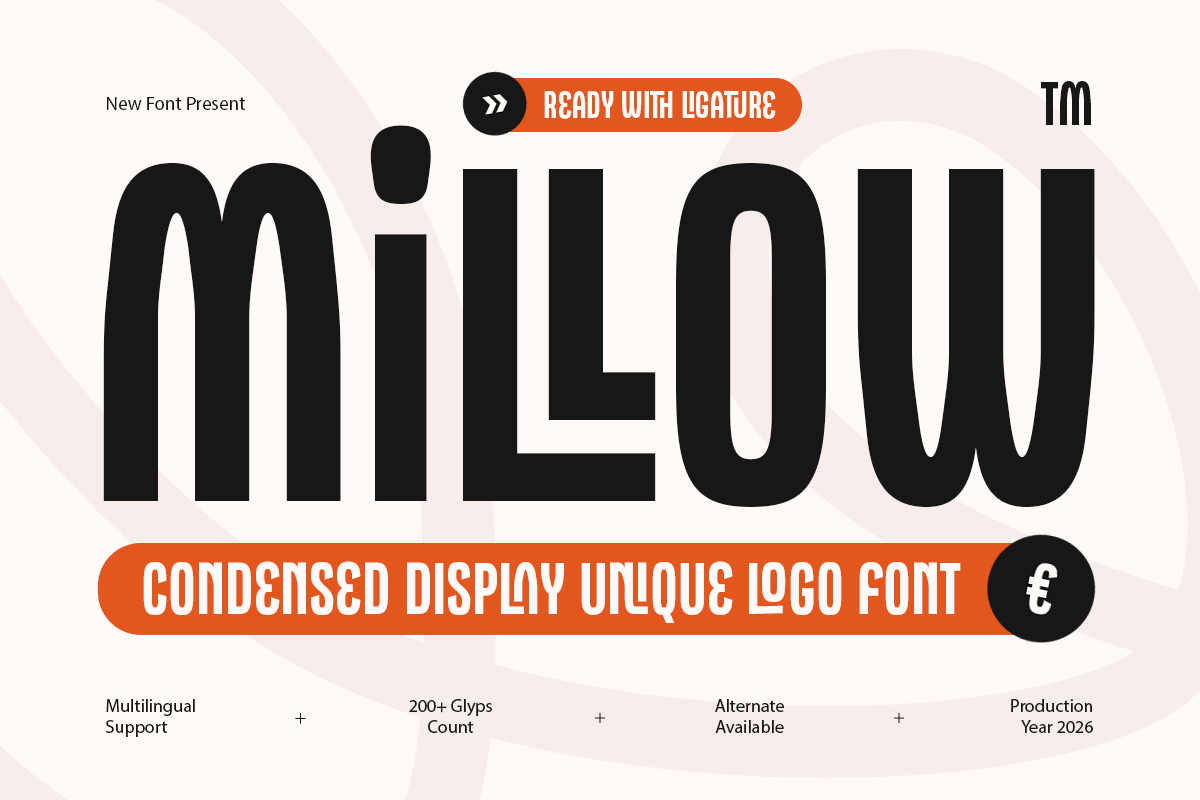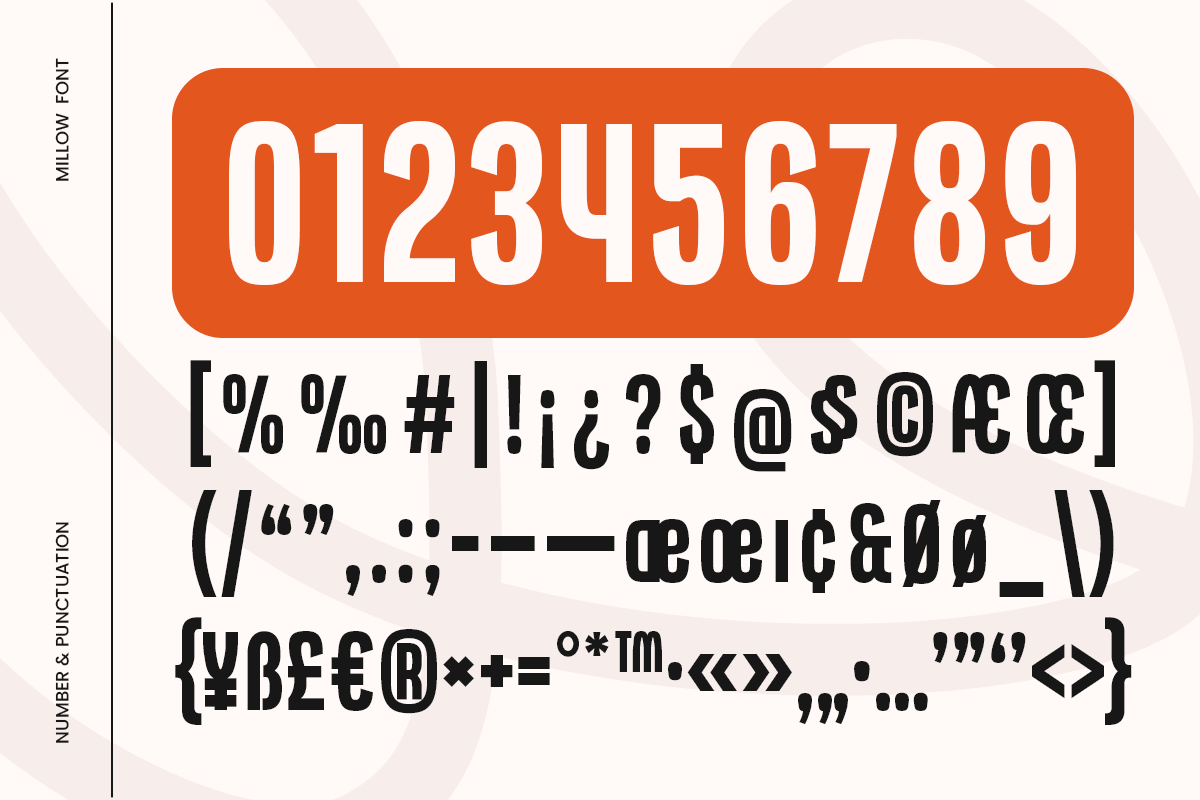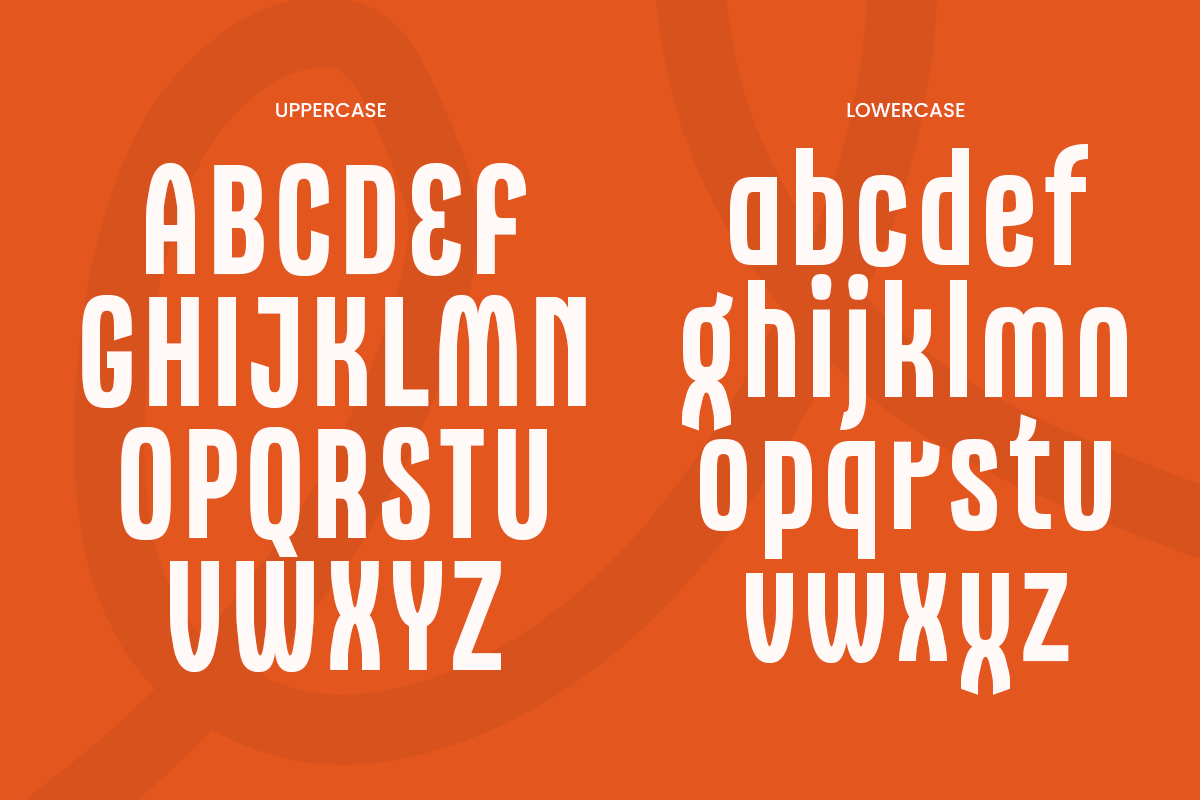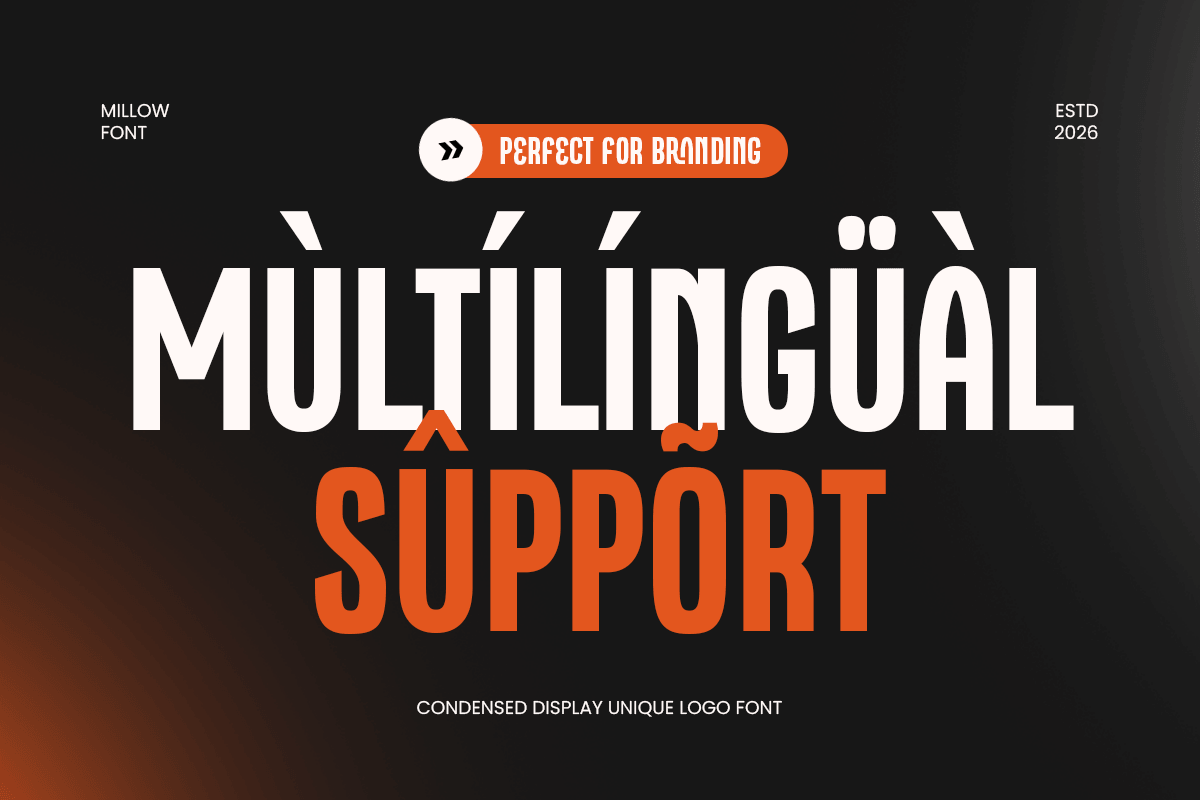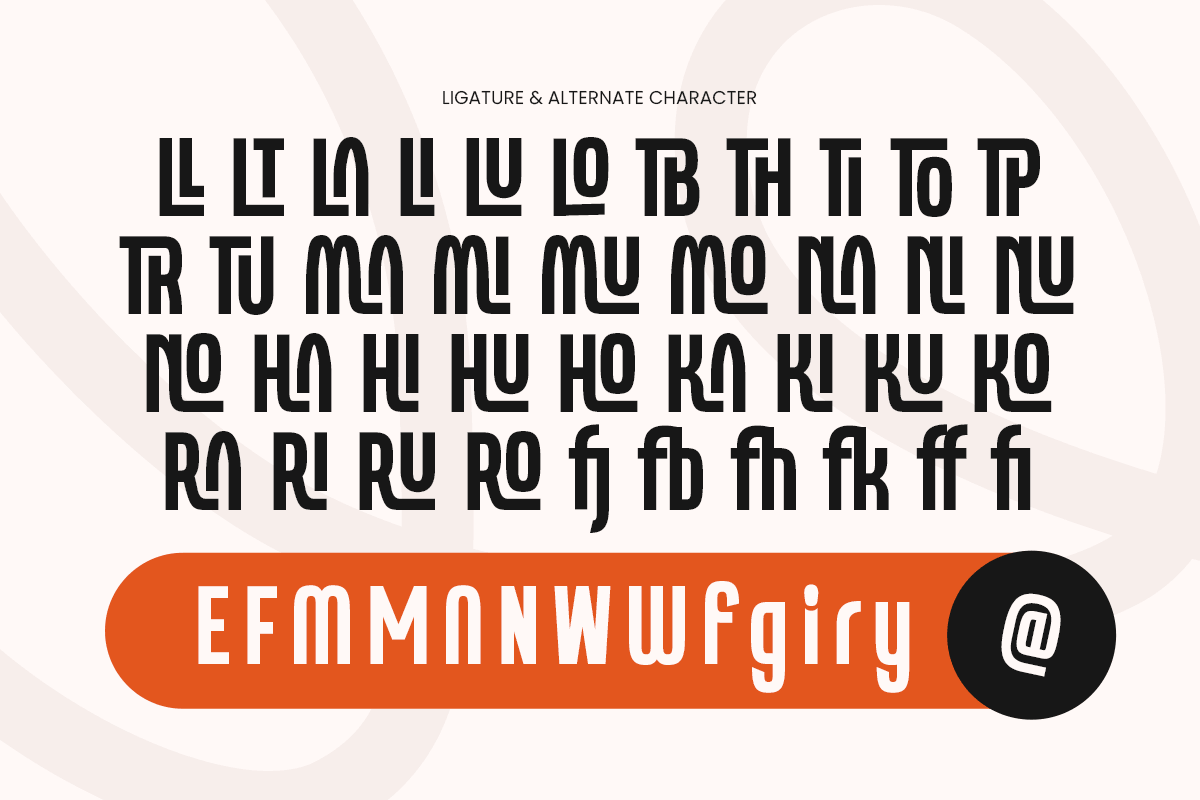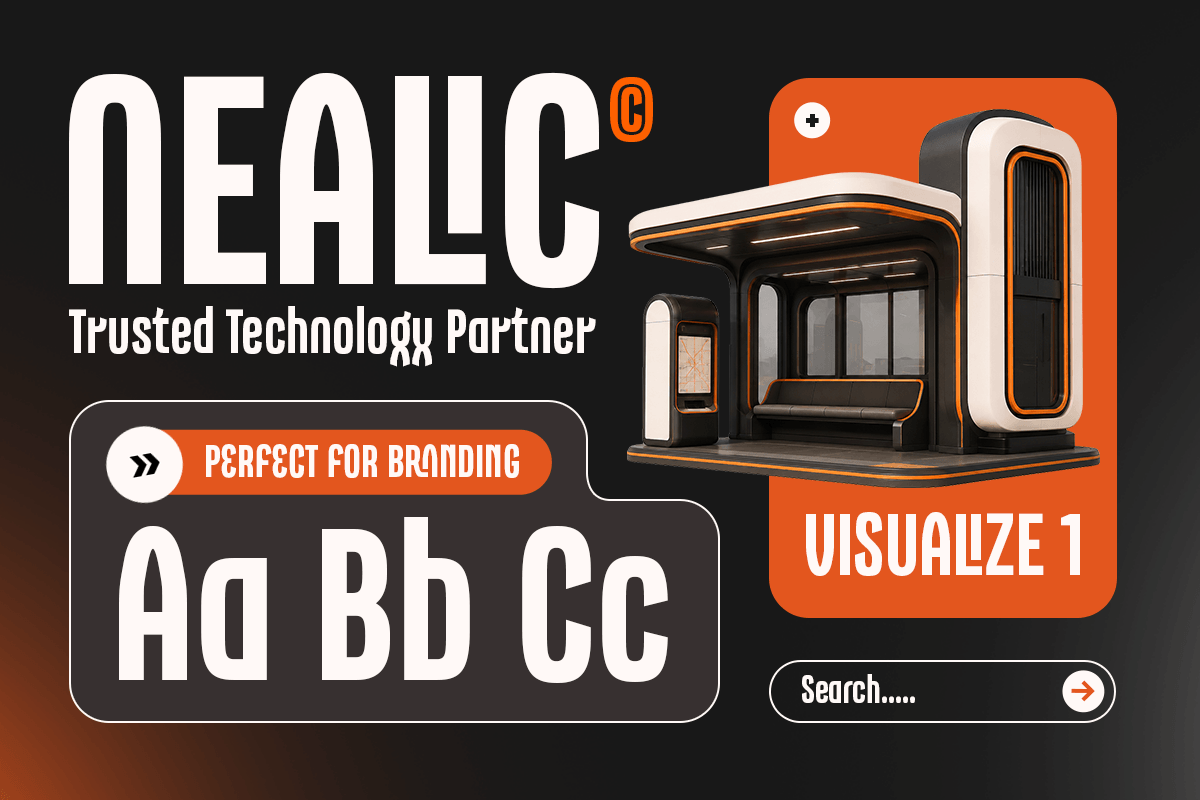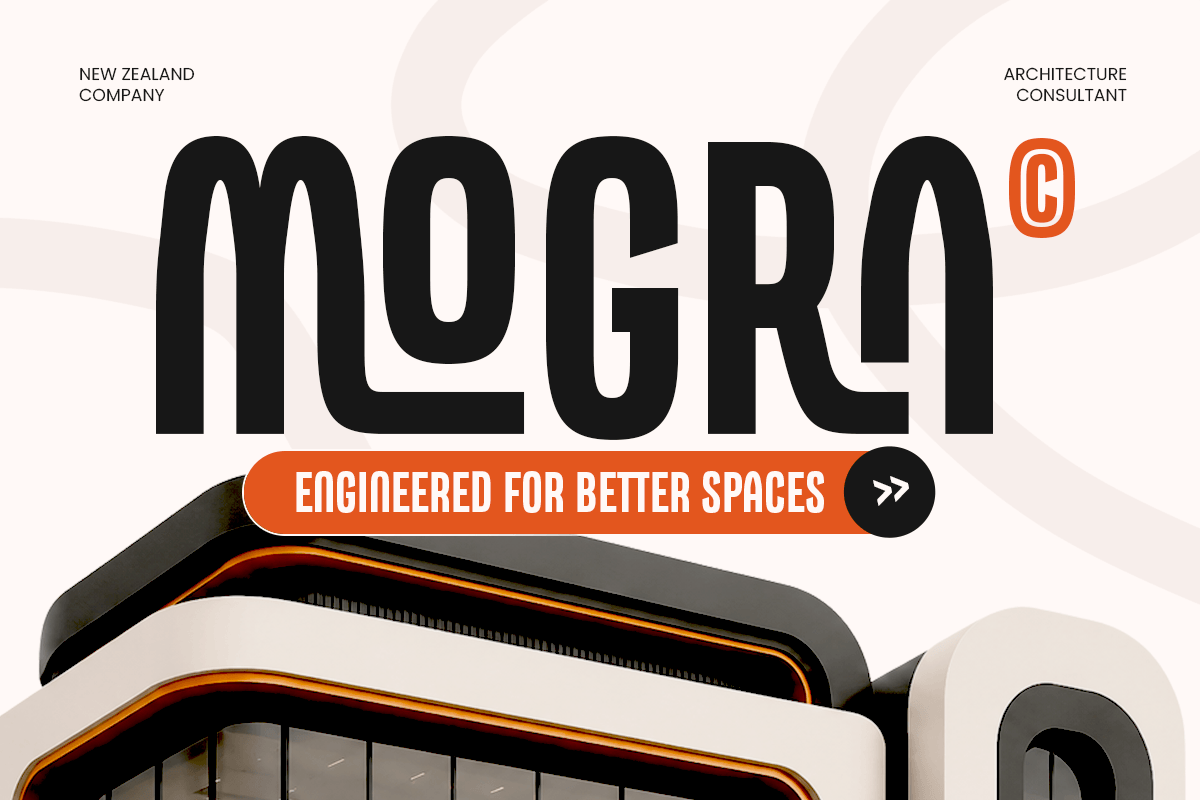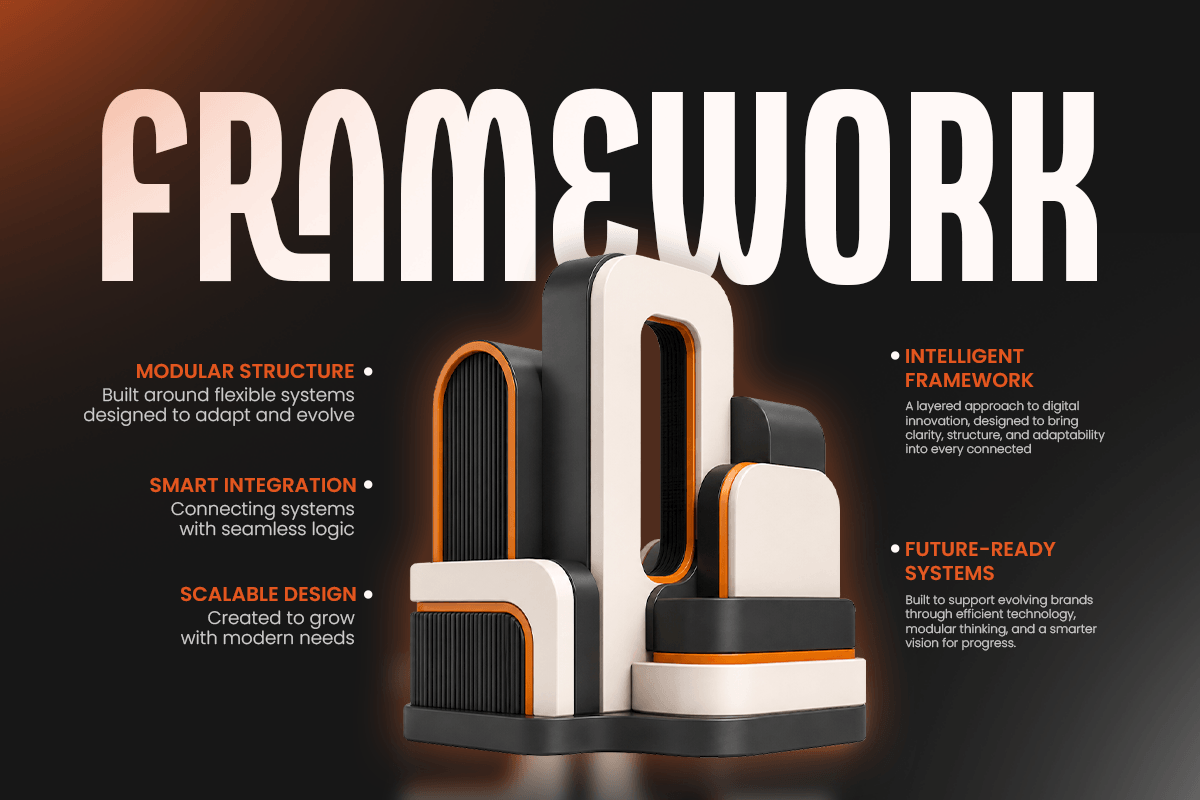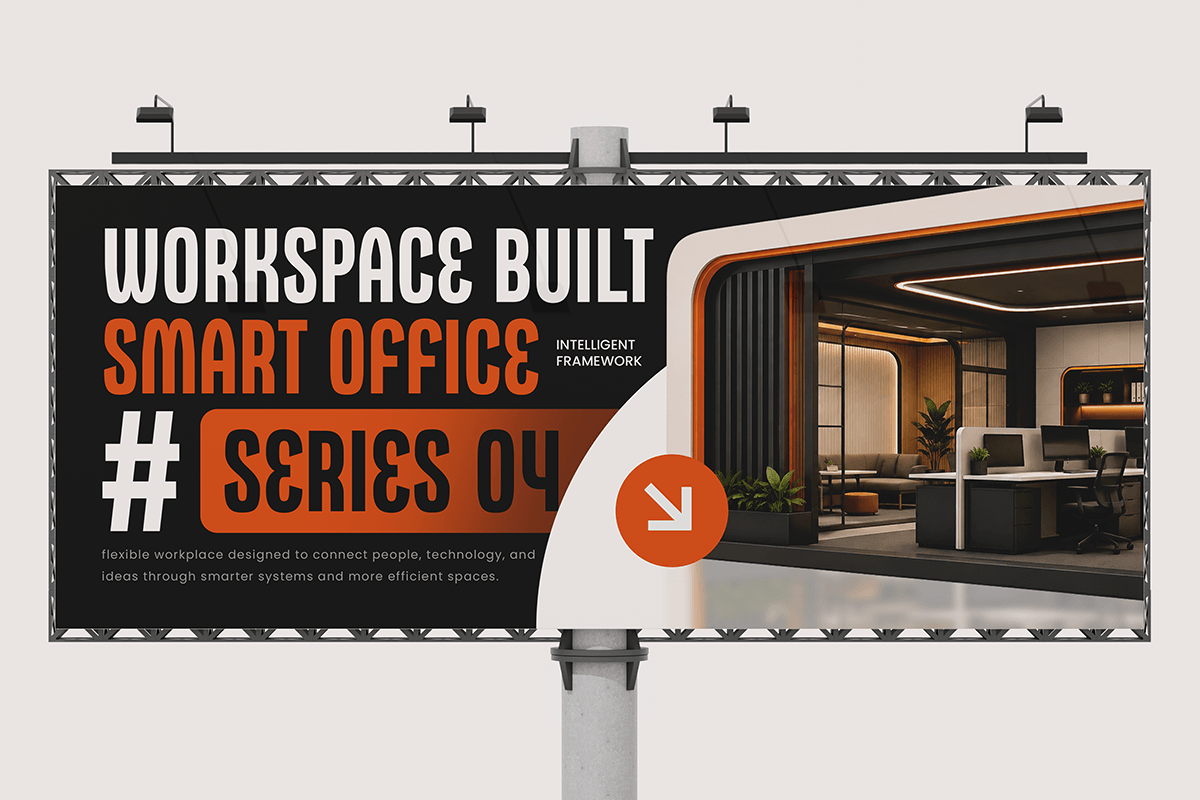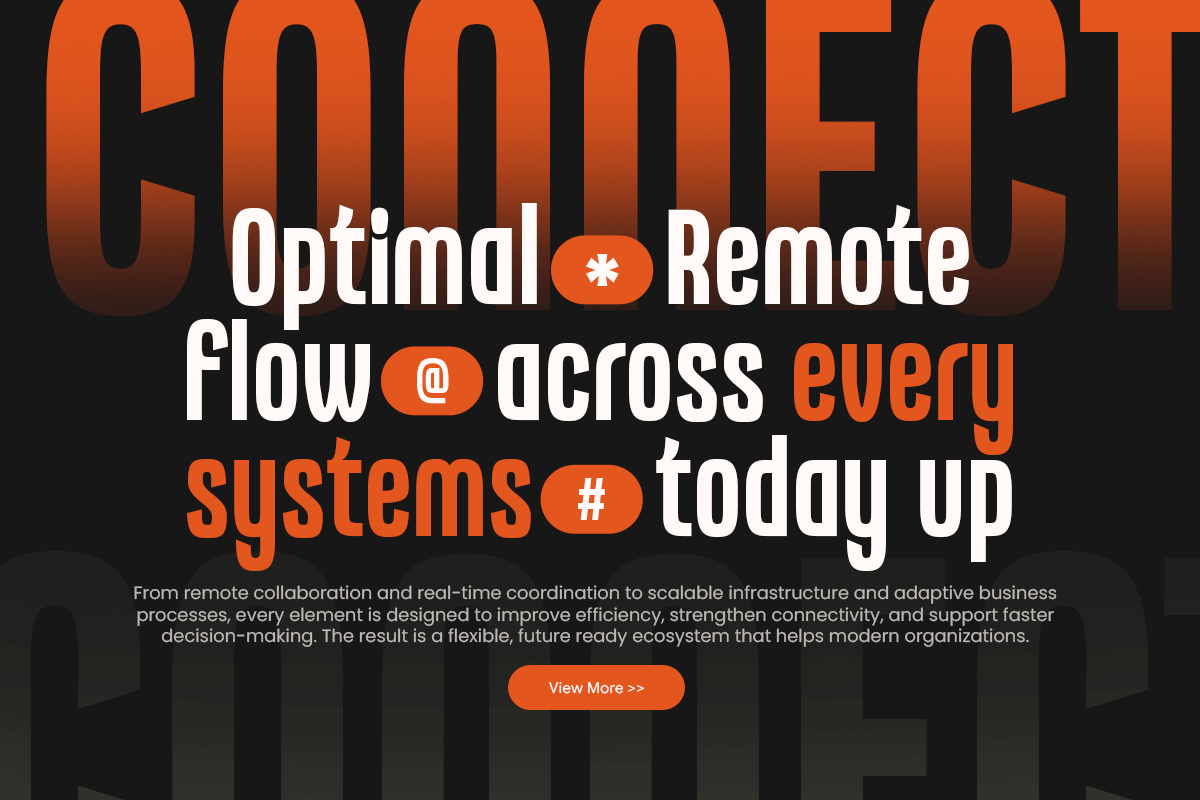
MILLOW – Condensed Modern Logo Font
MILLOW is a condensed modern logo font designed to create strong, clean, and memorable visual identities. Its narrow proportions, contemporary letterforms, and balanced geometry deliver a sleek professional character that works perfectly for modern branding and logo design.
Built for versatility, MILLOW is an excellent choice for logos, brand identity, packaging, posters, headlines, signage, editorial layouts, advertising, social media, and UI design. Its condensed structure makes efficient use of space while maintaining a confident visual presence across both digital and print projects.
Whether you're creating a modern corporate identity, fashion label, creative studio logo, product packaging, or minimalist campaign, MILLOW provides a distinctive modern logo font aesthetic with clarity and personality. Its clean condensed style helps designers build recognizable typography for contemporary brands and creative projects.
MILLOW – Condensed Modern Logo Features
- Sleek condensed letterforms with a modern aesthetic
- Designed for logos, branding, and visual identities
- Clean proportions for bold and memorable headlines
- Ideal for packaging, posters, signage, and editorial layouts
- Includes uppercase, lowercase, numerals, and punctuation
- Great for digital, UI design, social media, and print projects
- OpenType features for creative typographic flexibility
Multilingual Support
Afrikaans, Albanian, Asu, Basque, Bemba, Bena, Breton, Chiga, Cornish, Dutch, English, Estonian, Filipino, Finnish, Friulian, Galician, German, Gusii, Indonesian, Irish, Italian, Kabuverdianu, Kalenjin, Kinyarwanda, Luo, Luxembourgish, Luyia, Machame, Makhuwa-Meetto, Makonde, Malagasy, Manx, Morisyen, North Ndebele, Nyankole, Oromo, Portuguese, Quechua, Romansh, Rombo, Rundi, Rwa, Samburu, Sango, Sangu, Scottish Gaelic, Sena, Shambala, Shona, Soga, Somali, Spanish, Swahili, Swedish, Swiss, and more.